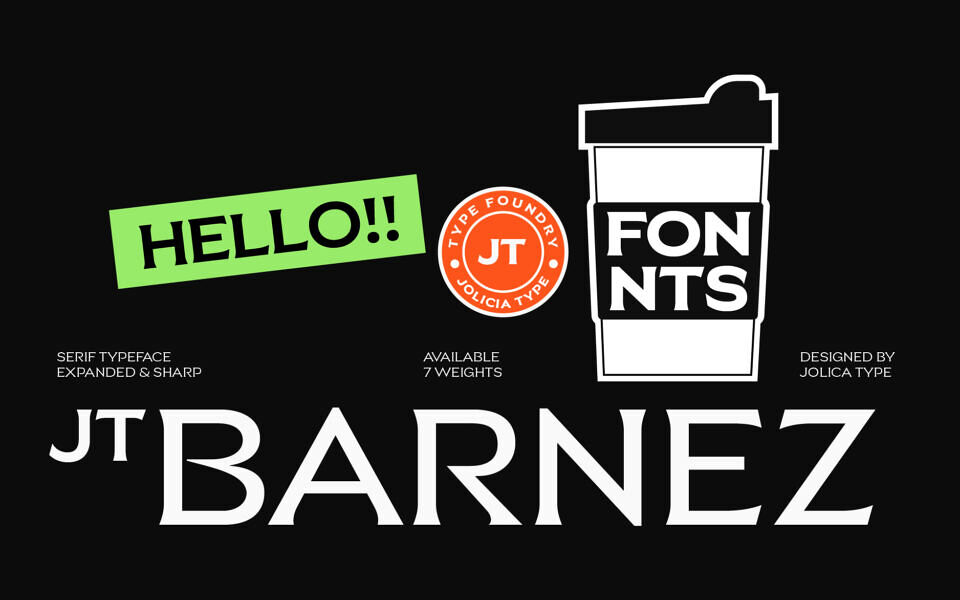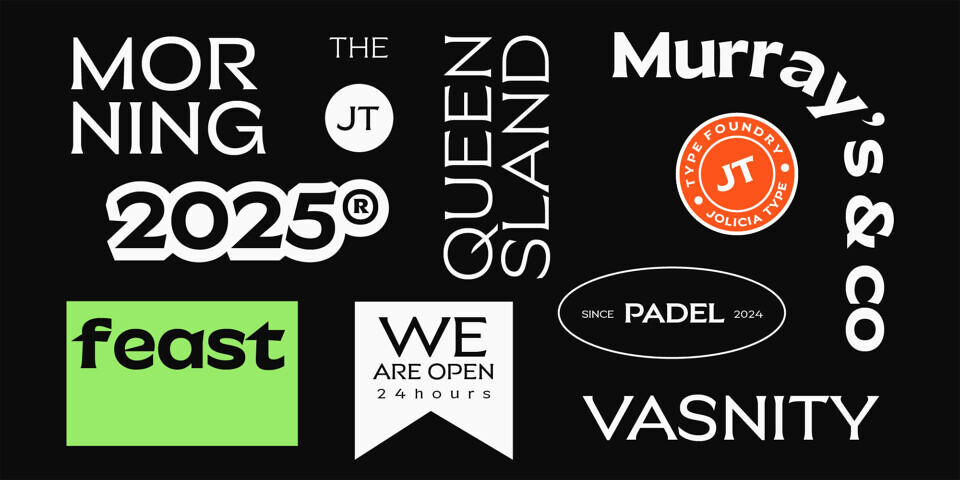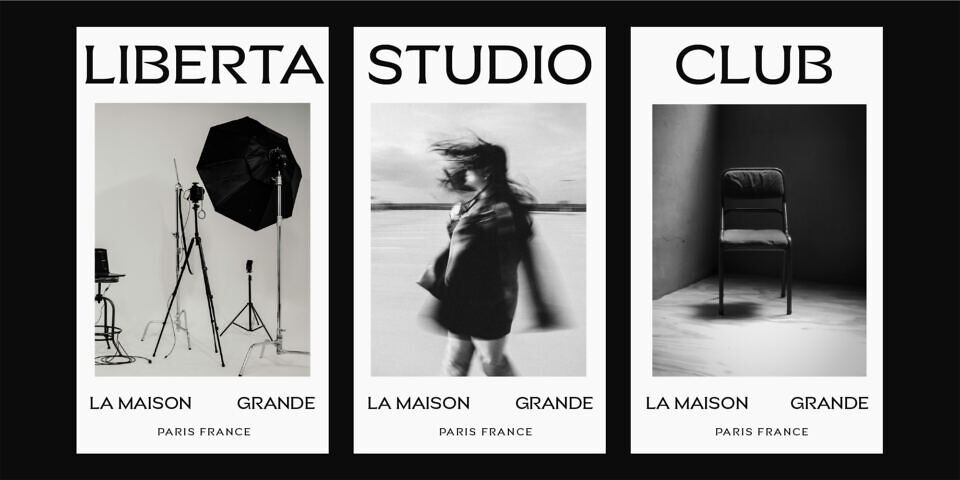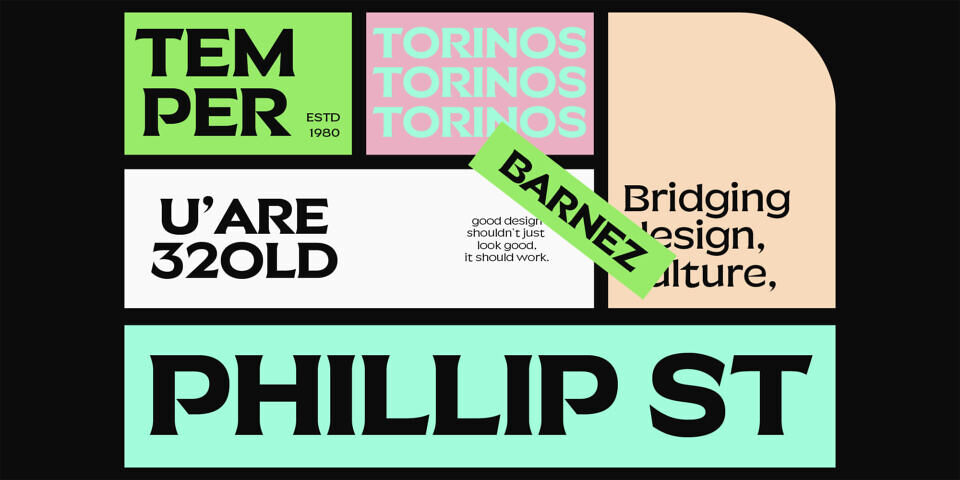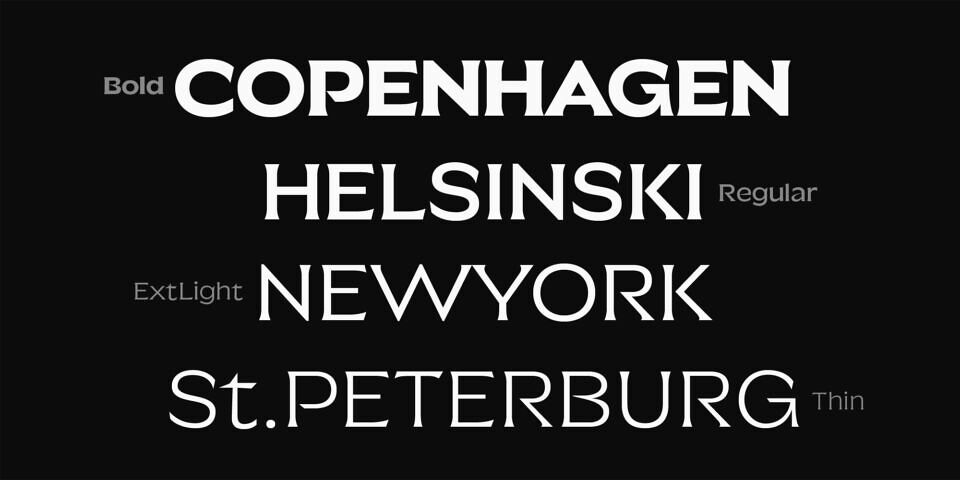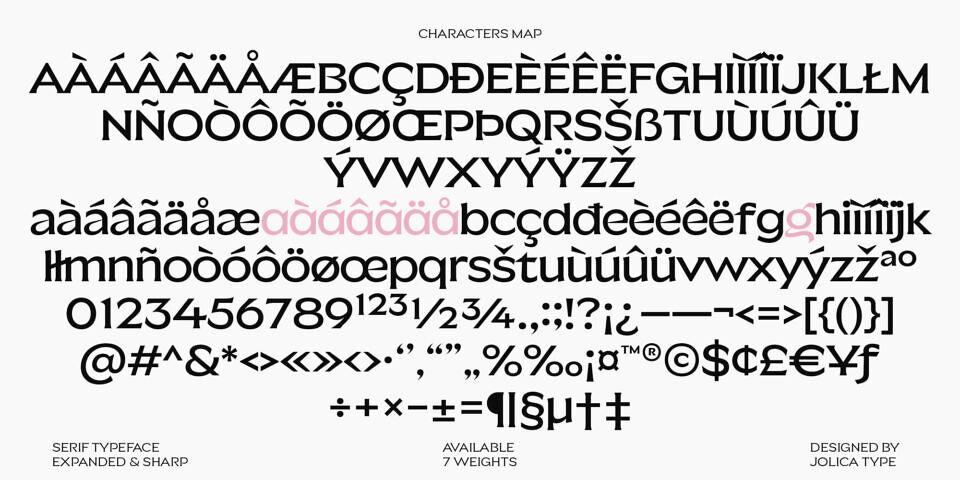
JT Barnez is a refined hybrid typeface combining the subtle elegance of a serif with the clarity of a clean sans-serif. Designed with expanded proportions and precise, sharp detailing, JT Barnez delivers a bold visual presence while maintaining a modern, minimal, and effortless aesthetic.
The serif elements are intentionally subtle almost invisible creating a smooth fusion that feels contemporary, stylish, and forward-thinking. Each character is shaped with crisp edges and thoughtful spacing, resulting in typography that feels confident, structured, and visually striking.